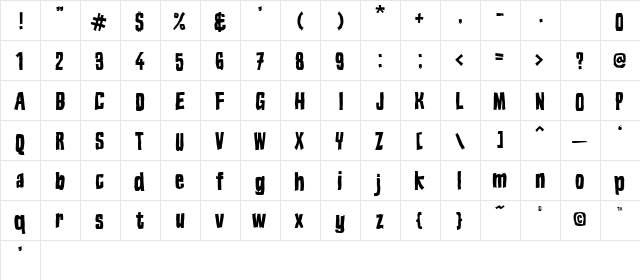
Blok Heavy
| Designer | Tup Wanders |
Design Context for Blok Typeface
Blok offers clean, dependable letterforms without strong stylistic allegiance, making it a practical choice for designers who need flexibility.
Pro Tip: Use Blok in both headline and body roles to test its range before committing to a single application.